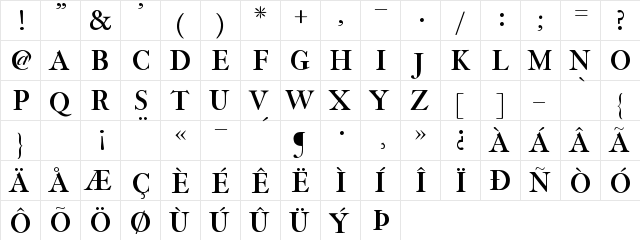
IM FELL THREE LINE PICA Regular Font Preview
IM FELL THREE LINE PICA Regular
IM FELL THREE LINE PICA Regular Font Details
| Foundry | Igino Marini |
| Designer | Igino Marini |
Design Context for IM FELL THREE LINE PICA Typeface
IM FELL THREE LINE PICA is a composed and adaptable typeface that performs quietly and consistently across a wide range of design contexts.